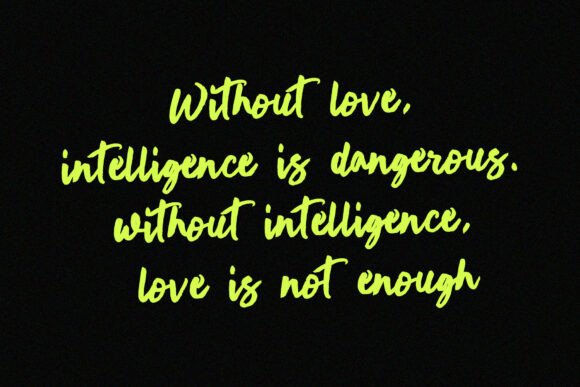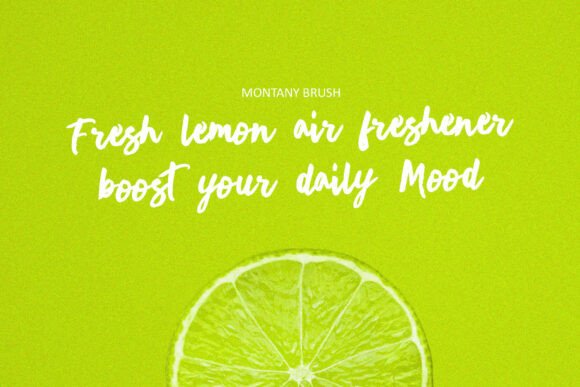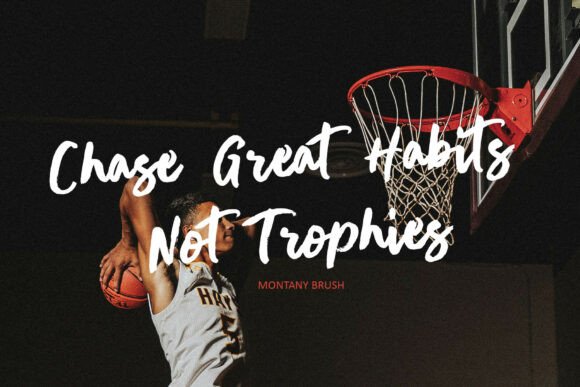
Introduction to Montany Font
As you sit at your desk, surrounded by scribbled notes and coffee-stained papers, you can’t help but crave that authentic, handwritten feel. It’s a moment we’ve all experienced – a creative urge to express ourselves in a way that’s uniquely personal. That’s where the Montany Font comes in, a game-changing design resource that captures the essence of handwritten notes in a digital format.
With its organic, textured look and feel, the Montany Font is a high-quality addition to any designer’s toolkit. Whether you’re working on a creative project that demands a handmade look or simply need a font that exudes sophistication, the Montany Font is the perfect choice. Its versatility and seamless integration with other fonts make it an invaluable resource for designers who value authenticity and individuality.
Key Features of Montany Font
- High-quality design resource ideal for creative projects, such as logos, branding materials, and advertising campaigns.
- Includes a range of stylish and modern characters, including uppercase and lowercase letters, numbers, and punctuation marks.
- Designed with a clean and minimalist aesthetic, making it perfect for use in modern and creative projects, such as graphic design, digital art, and web design.
Honest Review: Montany Font
I recently had the chance to work with the Montany Font, and I must say, it’s a great addition to any design project. One of the things that stands out is its unique aesthetic, which can add a touch of sophistication to any creative project. ✨ The font’s high quality makes it perfect for designing professional-looking documents, websites, or social media graphics.
One of the things that I appreciate about the Montany Font is its versatility. It comes in a range of weights and styles, making it easy to find the perfect fit for your design. The font is also available for free download, which is a major plus in my book. ✨ Plus, the transparent background makes it easy to layer with other design elements.
However, I did encounter a few limitations while working with the Montany Font. ⚠️ For one, the font can be a bit difficult to read at smaller sizes, and the lack of bold italic styles can make it challenging to create emphasis in certain situations. Additionally, some of the characters may not render properly in certain fonts or applications.
Overall, I’d say that the Montany Font is a solid choice for designers who are looking for a high-quality, versatile font. While it may have some limitations, its unique aesthetic and high-quality design make it a valuable addition to any design resource.
- Unique aesthetic
- High quality
How to Use Montany Font
The Montany Font is a high-quality, versatile design resource perfect for any creative project. With its unique style and transparent background, it’s a great addition to your design arsenal.
Getting the Most Out of Montany Font
To get the most out of Montany Font, experiment with different font sizes, colors, and combinations. You can also use it in conjunction with other design elements, such as images and shapes.
The Montany Font is perfect for a variety of creative projects, including:
- Social media graphics and ads